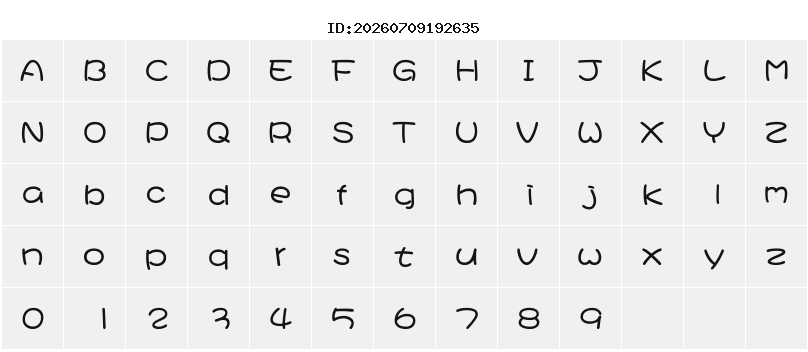
华康少女文字W5(P) Preview
• Font Name: 华康少女文字W5(P)
• Full Font Name: 华康少女文字W5(P)
• PostScript Name: DFPShaoNvW5
About 华康少女文字W5(P).ttf
华康少女文字W5(P).ttf is a modern, elegant sans-serif font designed for ultimate readability and visual harmony. Perfect for branding, headlines, web design, and print materials.